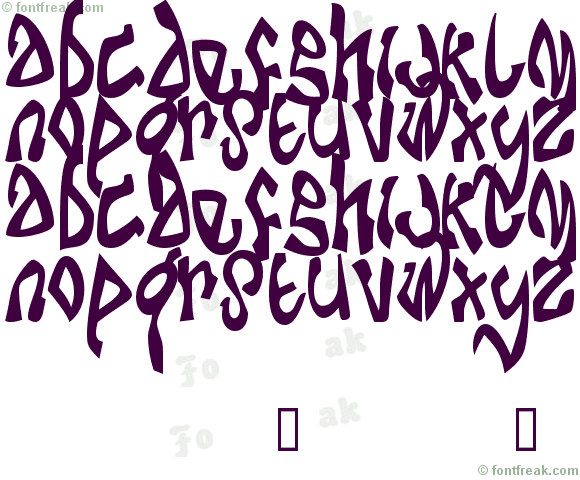
Da Bomb
Da Bomb is a striking display font designed by Rajan Lawla and published by Future Fonts. This freeware typeface showcases a bold and playful aesthetic, making it an excellent choice for projects that require a touch of personality. As a display font, Da Bomb stands out with its unique character shapes and dynamic forms, combining elements of both modern and retro styles. Its stroke weight is thick and consistent, offering a sense of confidence and impact, while the spacing between characters is balanced to ensure readability in various contexts.
Visual characteristics of Da Bomb include rounded edges and a slightly whimsical flair, giving it an approachable yet energetic vibe. The font's decorative elements add an extra layer of visual interest, making it ideal for grabbing attention. This font is perfect for a variety of creative uses, including vibrant movie posters that aim to evoke excitement, eye-catching restaurant menus that invite diners to explore the offerings, and engaging social media graphics that require a standout headline. Additionally, it can be a fantastic choice for event flyers and promotional materials, especially in youth-oriented markets.
Da Bomb appeals to a broad target audience, including graphic designers seeking to infuse their work with a lively touch, small business owners looking to establish a memorable brand identity, and content creators who want to craft visually compelling narratives.
What truly makes the Da Bomb font unique is its ability to convey a sense of fun while maintaining professionalism. Its versatility allows for use in both casual and formal settings, making it a valuable addition to any designer's toolkit. For those interested in adding this remarkable typeface to their collection, a Da Bomb font free download is available, offering creative possibilities without breaking the bank.